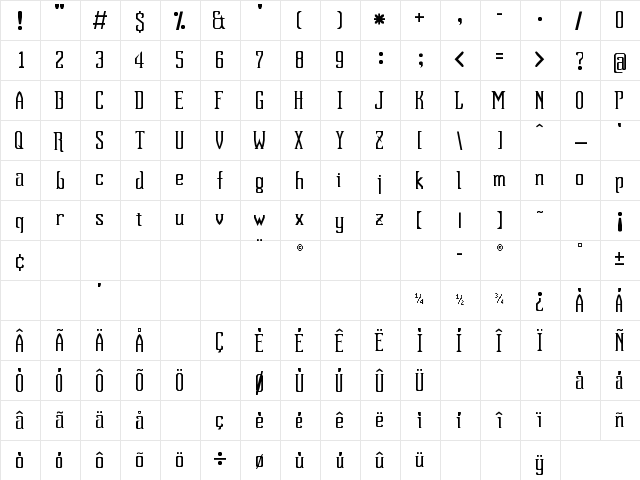
Project XV Regular
Design Context for Project XV Typeface
Project XV offers clean, dependable letterforms without strong stylistic allegiance, making it a practical choice for designers who need flexibility.
Pro Tip: Pair Project XV with a font of contrasting weight or personality to build a more expressive typographic hierarchy.